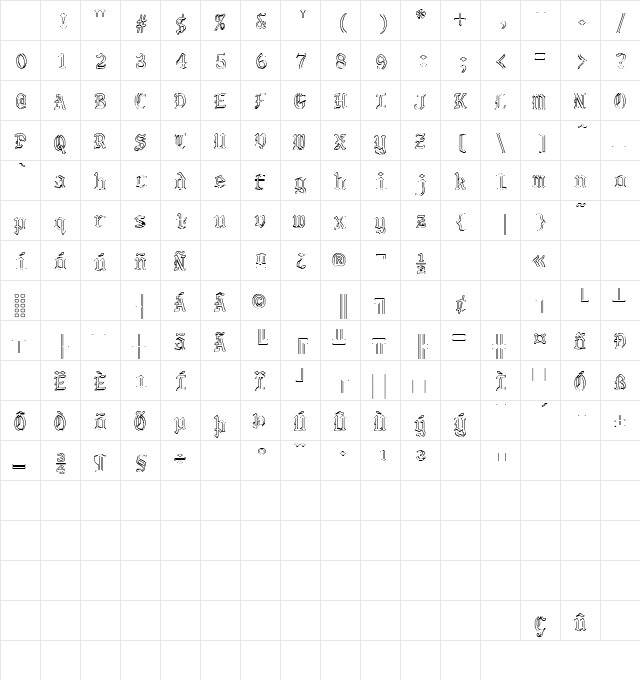
Complete Ye Olde Font 1 Regular glyph index. Displaying only characters natively supported by Ye Olde Font 1 Regular font.
Ye Olde Font 1 is a composed and adaptable typeface that performs quietly and consistently across a wide range of design contexts.